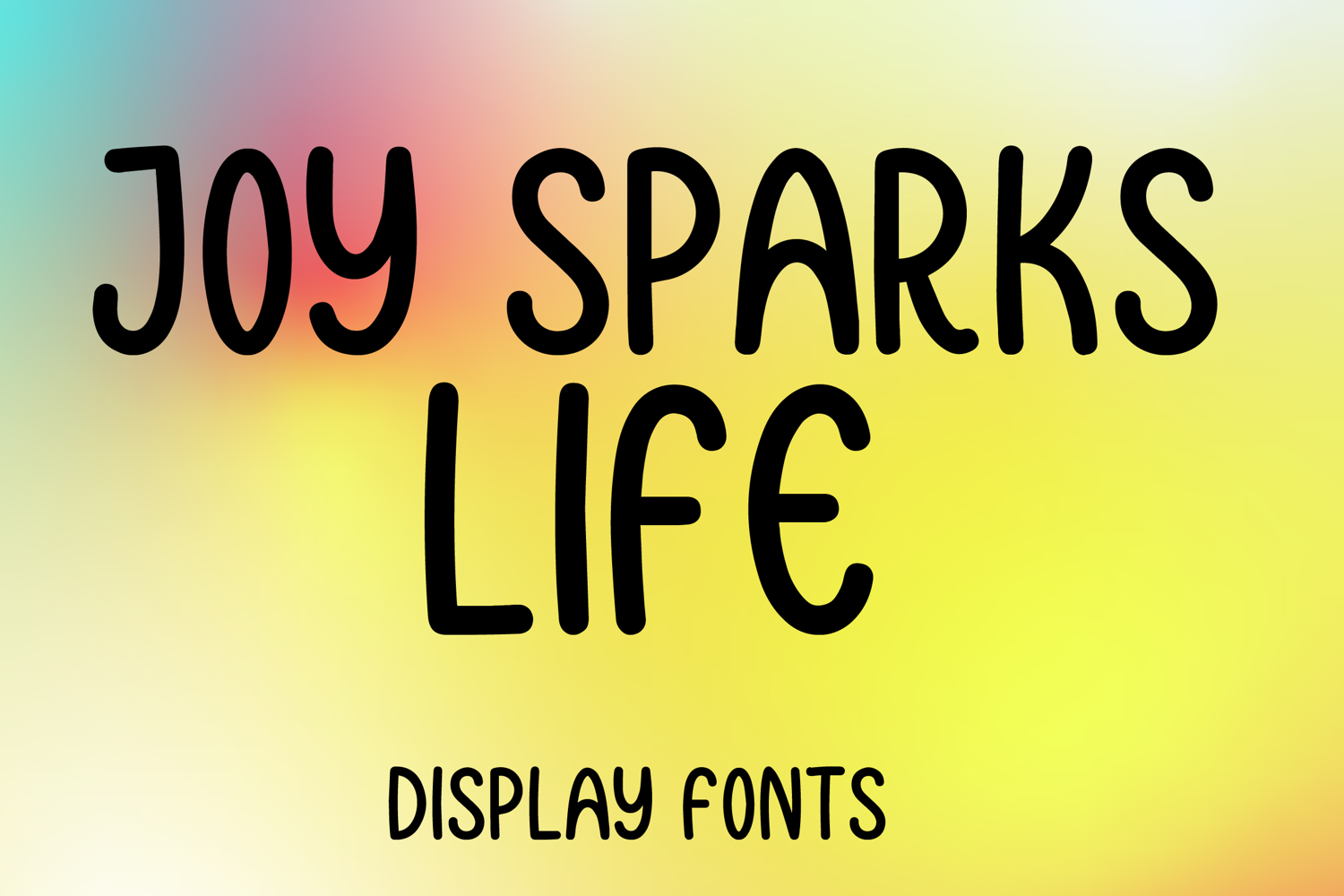
JOY SPARKS LIFE
JOY SPARKS LIFE is a playful modern display font with a clean hand-drawn style and cheerful minimalist charm. Its uppercase letterforms feature tall rounded shapes, smooth monoline strokes, and a friendly airy look that creates a fresh, warm, and eye-catching feel. Designed with uppercase letters A–Z and numbers 0–9, JOY SPARKS LIFE is perfect for branding, posters, packaging, logos, social media graphics, quotes, and creative projects that need a joyful and memorable statement.